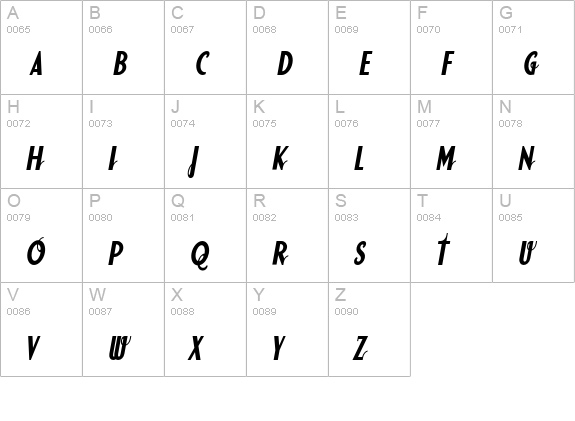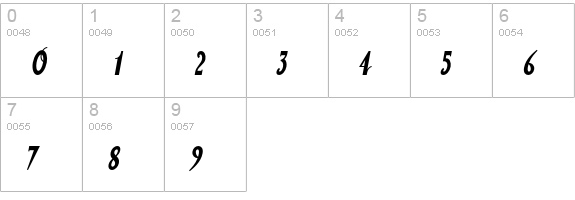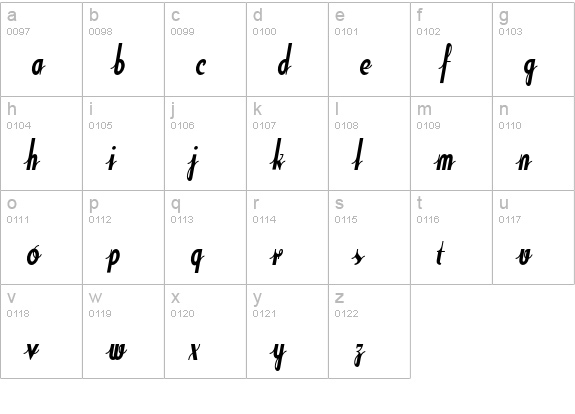
SodaScriptBold Font Details
SodaScriptBold is a stunningly bold and eye-catching font that will make your designs pop with personality. With its unique and playful script style, this font is perfect for adding a touch of whimsy to any project. Whether you're designing a logo, creating a poster, or crafting a social media post, SodaScriptBold is sure to grab attention and leave a lasting impression. One of the best things about SodaScriptBold is that it is completely free. That's right, you can download this amazing font at absolutely no cost. Thanks to FontsMarket.com, you can easily access and enjoy the beauty of SodaScriptBold without breaking the bank. Not only is SodaScriptBold free, but it is also incredibly versatile. It can be used in a variety of design applications, from web and print to branding and packaging. Its bold and legible letters make it a great choice for headlines and titles, while its elegant curves and flourishes add a touch of sophistication to any design. With its extensive character set, SodaScriptBold offers a wide range of options to bring your creative vision to life. Whether you're looking for uppercase, lowercase, numbers, or punctuation marks, this font has got you covered. Plus, it supports multiple languages, making it accessible to a global audience. So why wait? Download SodaScriptBold today and unleash your creativity. Whether you're a professional designer or a hobbyist, this font will elevate your designs to new heights. Don't miss out on this amazing opportunity to access a high-quality, freely available font. Head over to FontsMarket.com now and let SodaScriptBold take your designs from ordinary to extraordinary.